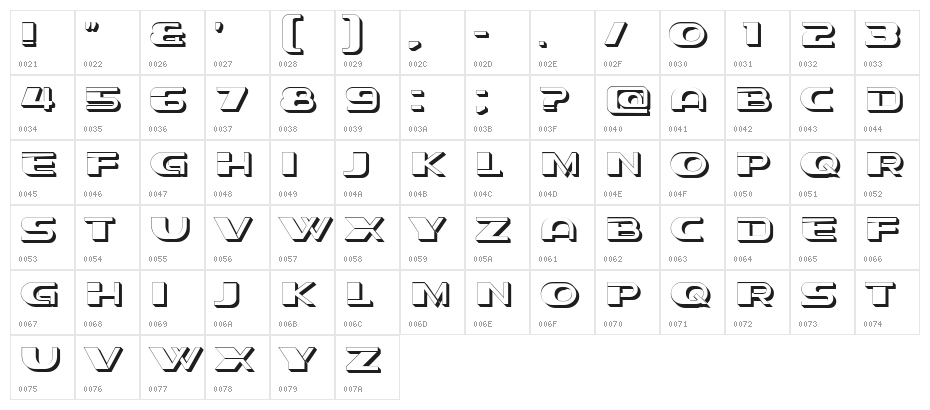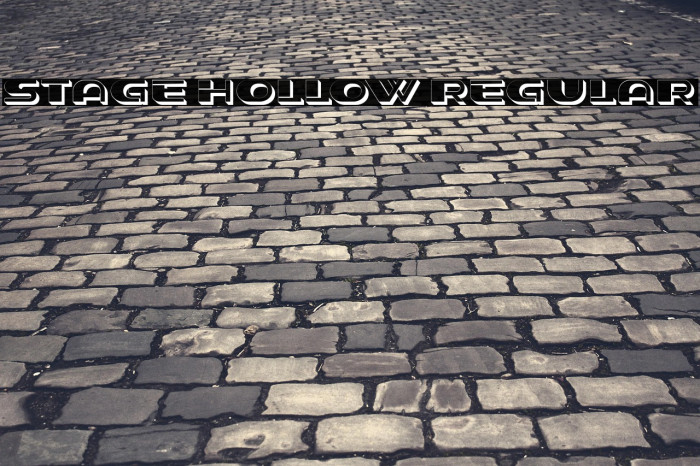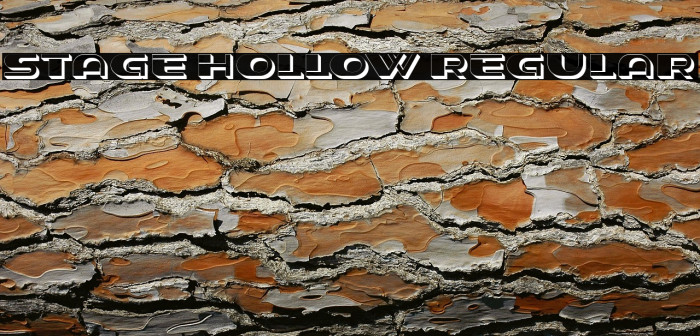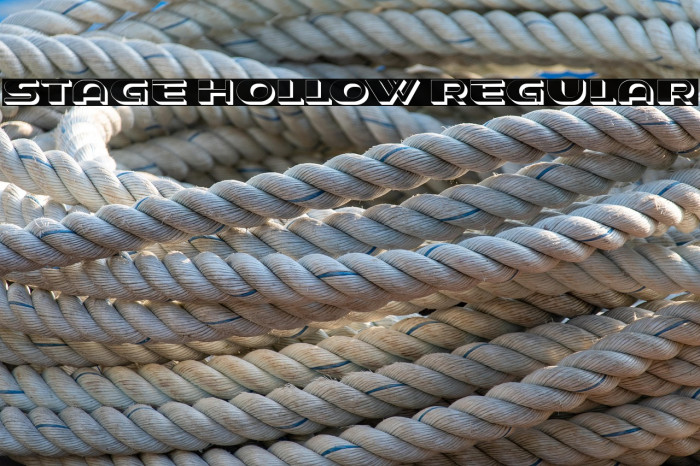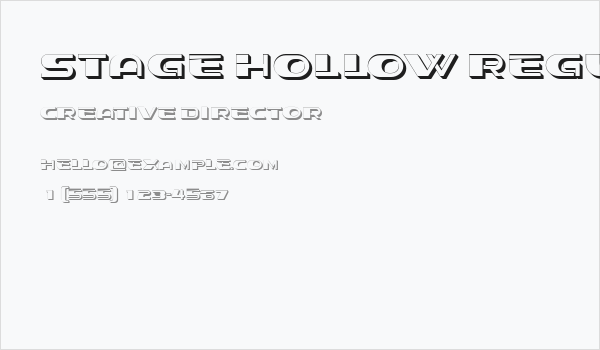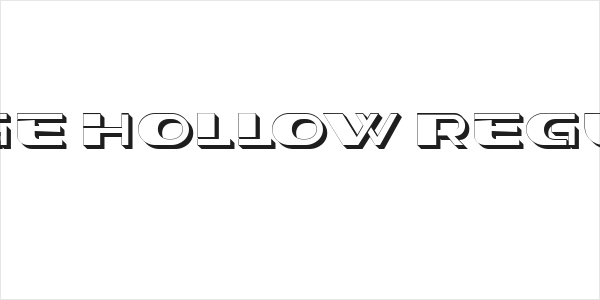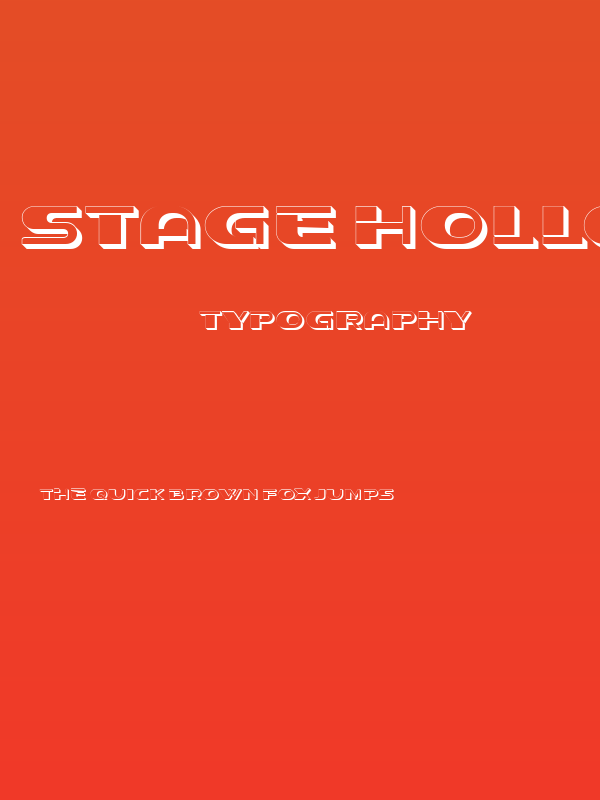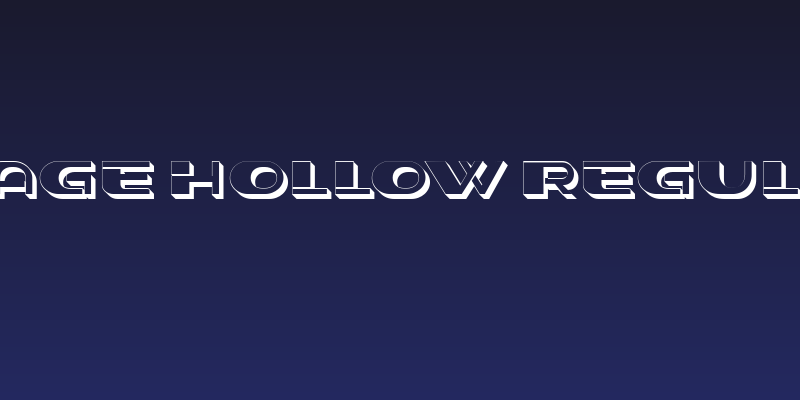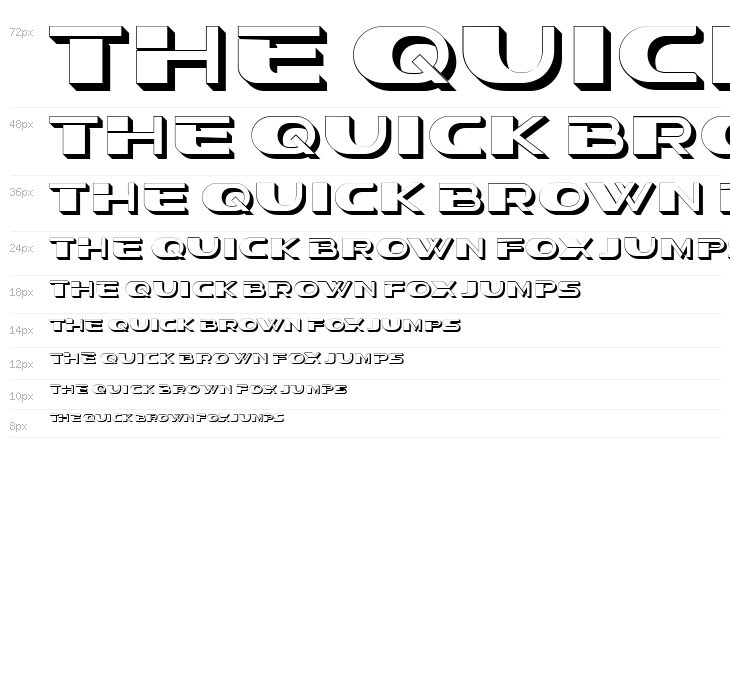
Stage Hollow Regular Font
Stage Hollow Regular Description
This font features a bold, hollow design with a modern and futuristic aesthetic. The characters are uppercase with a distinct three-dimensional effect, giving them a striking and dynamic appearance. The geometric shapes are consistent throughout, with sharp angles and clean lines that create a sense of depth. The numbers and special characters maintain this style, ensuring uniformity across all glyphs. The font's unique style makes it ideal for attention-grabbing designs.